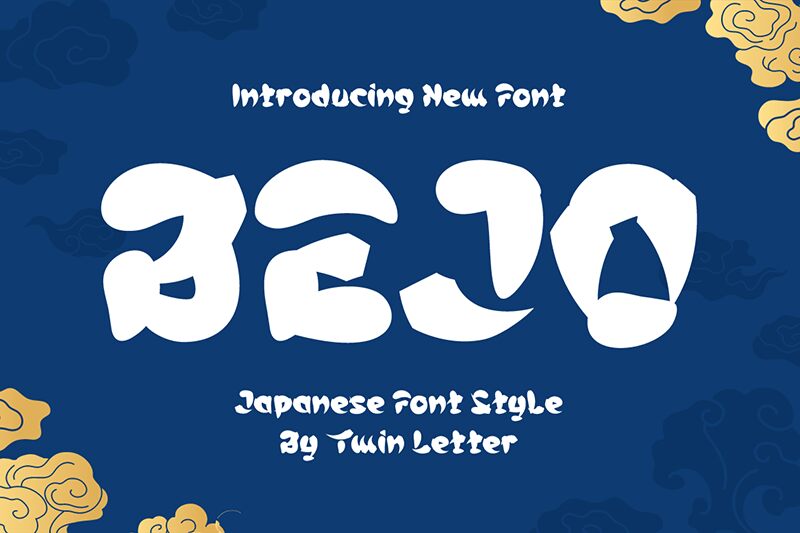
Bejo, the extra-bold, semi-expanded Japanese font designed by twinletter, is the perfect choice for any project that requires a bold and distinct look. Its unique foreign style makes it ideal for branding and advertising campaigns targeting international audiences. Whether you're designing a website or creating a print ad, Bejo is sure to capture attention with its powerful presence. Use it for signage, packaging, or even in video games where the bold strokes of this font will make your text stand out from the crowd. With Bejo at your fingertips, your creative possibilities are endless!